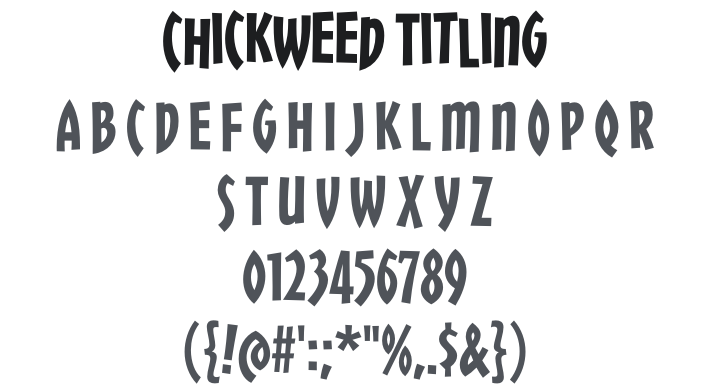
Chickweed Titling Font
About Chickweed Titling
Chickweed Titling is an all-caps display font made for bold, energetic headlines. Its compact shapes and lively curves pack strong personality into tight spaces, perfect for posters, logos, and editorial layouts. Automatic letter variation adds a natural, hand-painted rhythm, giving each line a spontaneous, crafted feel. Supporting a wide range of Latin-based languages and available for free commercial use, it brings warmth and motion to any project. For extended features and lowercase options, explore the full Chickweed family.